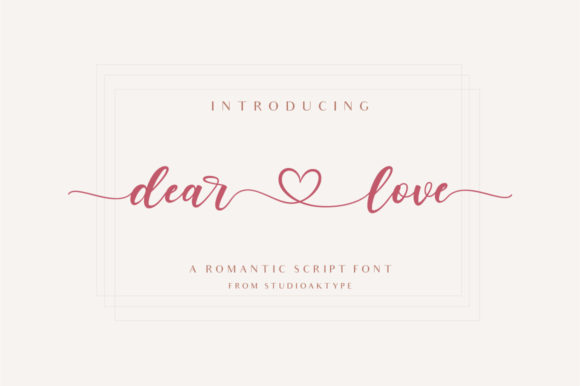
Prepare yourself to be swept off your feet by the captivating allure of Dear Love, a script font that embodies the essence of romance and elegance. Its graceful curves and delicate flourishes evoke a sense of timeless sophistication that will leave you breathless.
Dear Love is a dream come true for those seeking the perfect font for their wedding invitations, save-the-dates, and other heartfelt occasions. Its varying baseline and smooth lines create a natural, handwritten effect that adds an air of authenticity and intimacy to your words.
With Dear Love, you'll have a treasure trove of glyphs and stunning alternates at your fingertips, allowing you to customize your designs with endless possibilities. Its PUA encoding makes it a breeze to access these special characters, giving you the power to create truly unique and eye-catching creations.
Whether you're a seasoned designer or a passionate do-it-yourselfer, Dear Love is the perfect font to add a touch of enchantment to your projects. Its contemporary and fresh feel ensures that your designs will stand out from the crowd, making a lasting impression on your audience.
Don't resist the allure of Dear Love any longer. Fall head over heels for this exquisite font and watch as your projects reach new heights of beauty and sophistication. Let Dear Love be the perfect match for your heartfelt words and let the magic of its graceful curves captivate all who behold it.